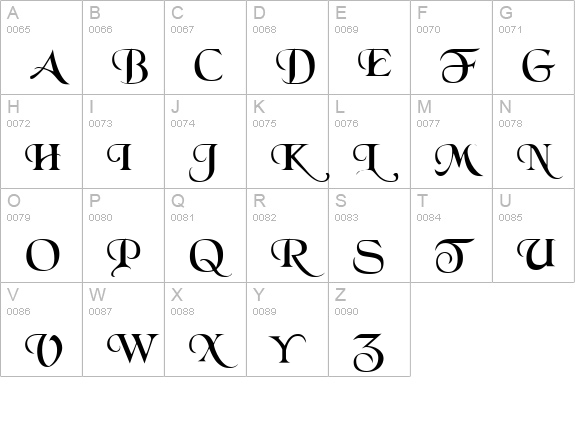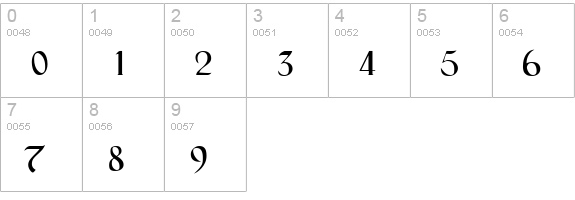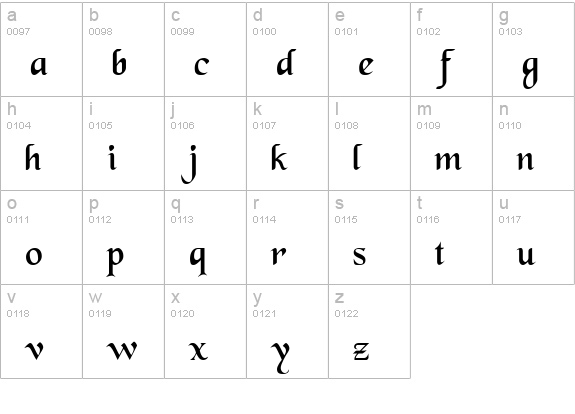
Tenace SSi Font Details
Tenace SSi is a captivating and versatile font that exudes confidence and elegance. Its sleek and modern design is perfect for a wide range of creative projects, from branding and logos to invitations and posters. The unique letterforms of Tenace SSi effortlessly combine sharp angles with smooth curves, creating a harmonious balance that is visually appealing and highly legible. This font is not only visually stunning, but it is also incredibly easy to work with. Its clean and crisp lines make it ideal for both large headlines and small body text. The attention to detail in each character is evident, with intricate serifs and subtle embellishments that add a touch of sophistication to any design. One of the best aspects of Tenace SSi is that it is freely available to download at FontsMarket.com. This means that designers and enthusiasts alike can access this exceptional font without any cost. Whether you are a professional designer looking to add a fresh and contemporary touch to your projects or a hobbyist exploring the world of typography, Tenace SSi is the perfect choice. With its free availability, Tenace SSi offers an incredible opportunity to elevate your designs without breaking the bank. Its versatility, elegance, and ease of use make it a must-have font for any creative endeavor. So why wait? Visit FontsMarket.com today and download Tenace SSi to unlock a world of possibilities.